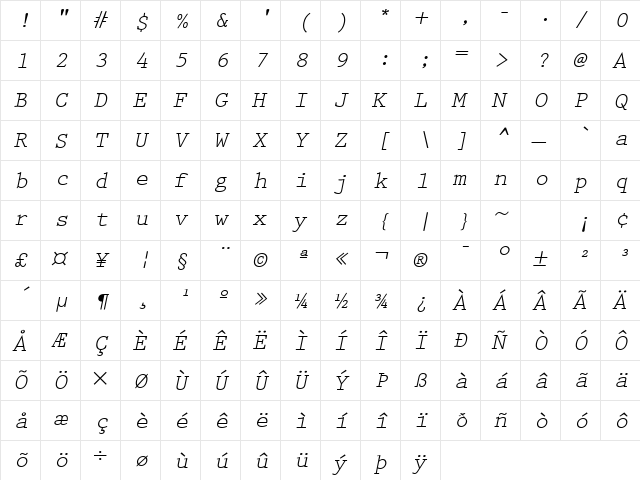
Prestige Elite Oblique
Design Context for Prestige Elite Typeface
Prestige Elite is a composed and adaptable typeface that performs quietly and consistently across a wide range of design contexts. The slanted form adds forward momentum and visual energy.
Pro Tip: Try Prestige Elite for annotation and caption copy alongside an upright companion — the contrast in angle creates a dynamic but ordered typographic system.